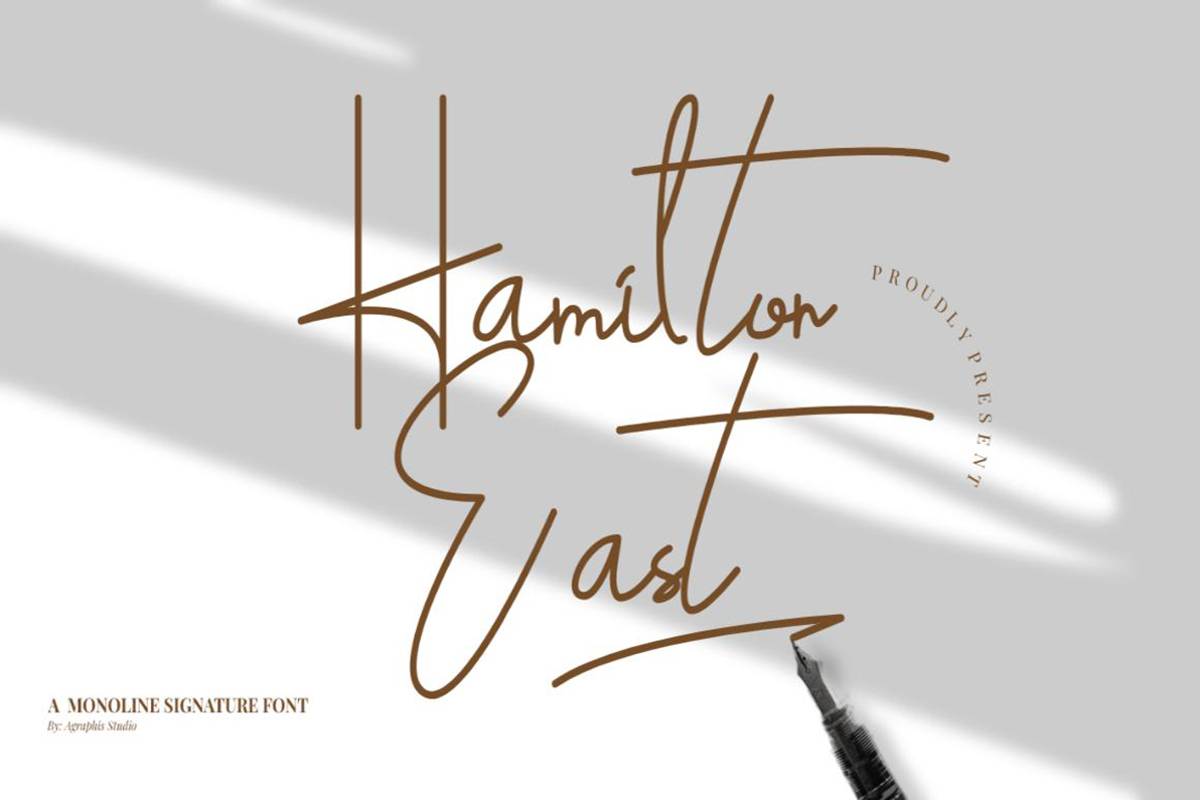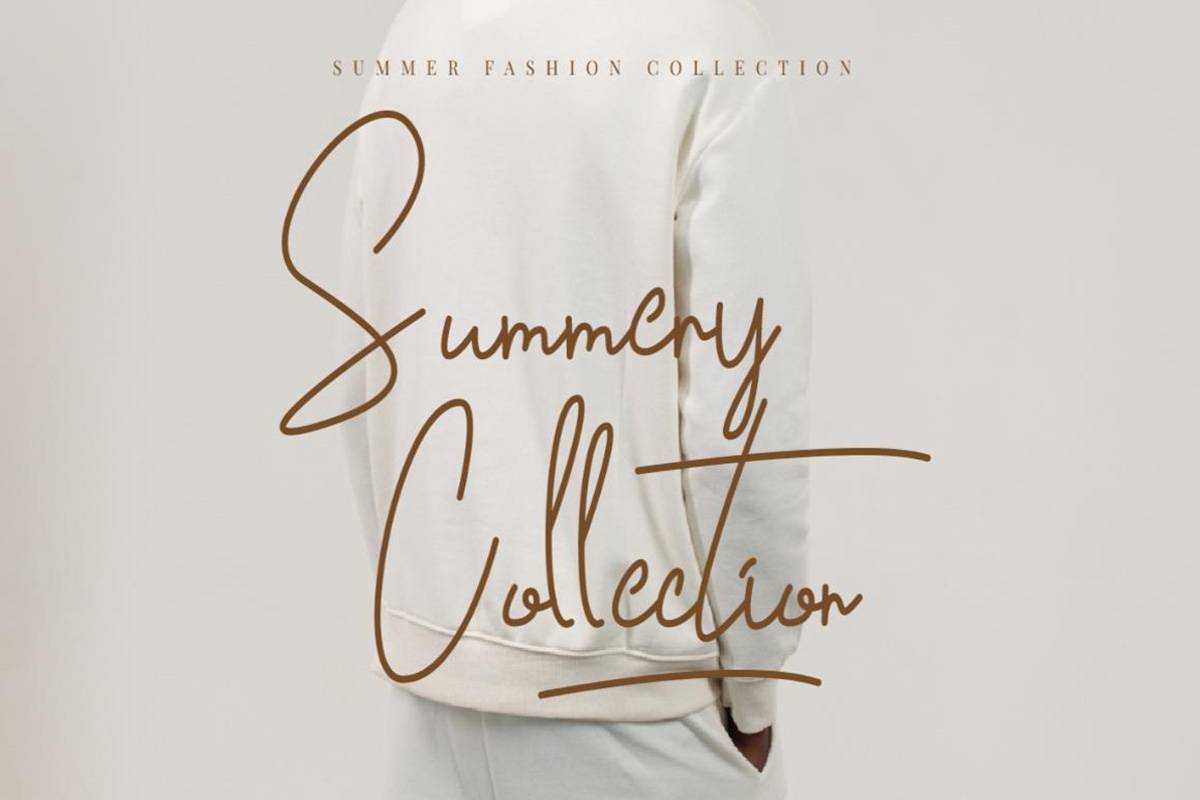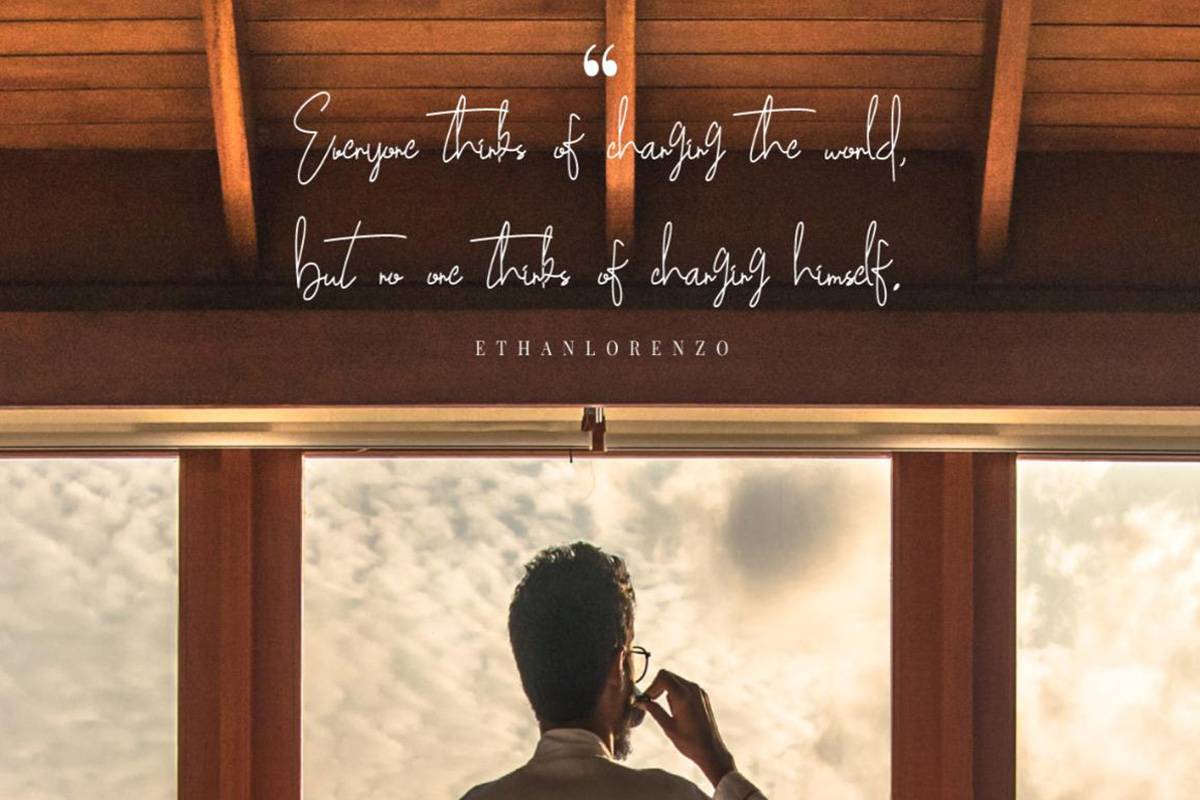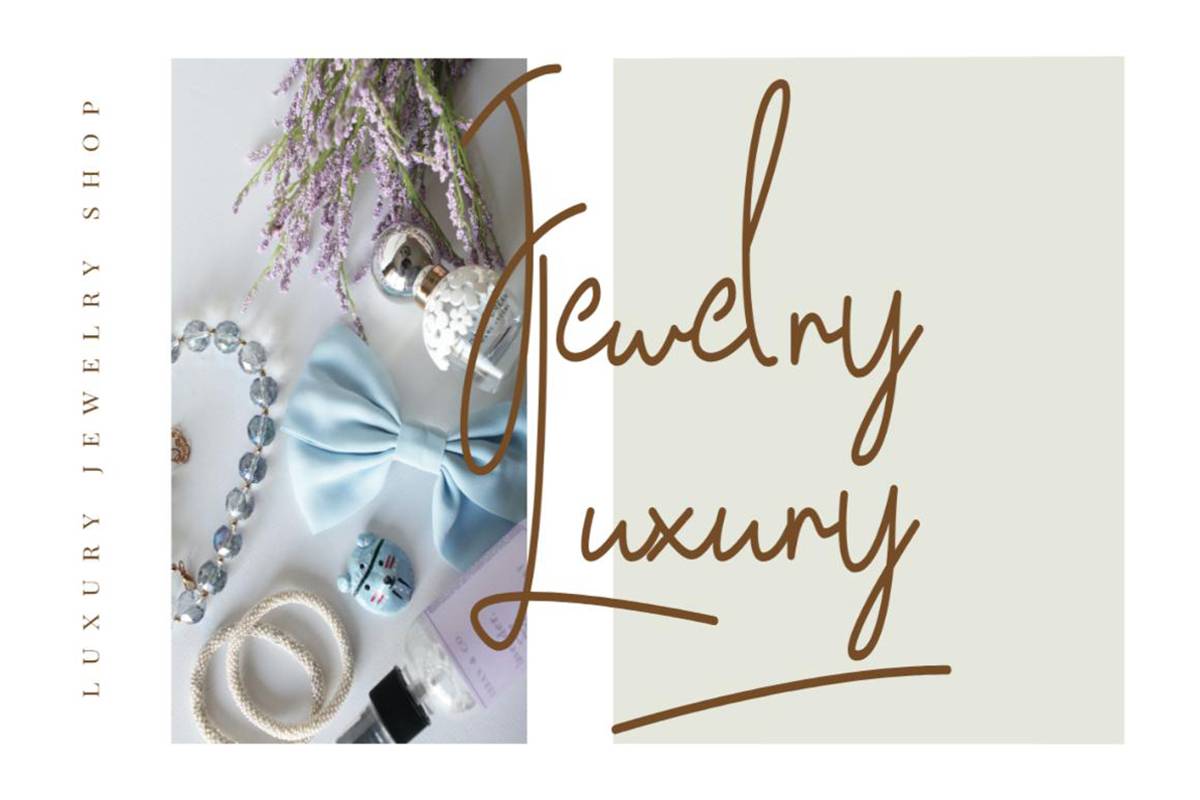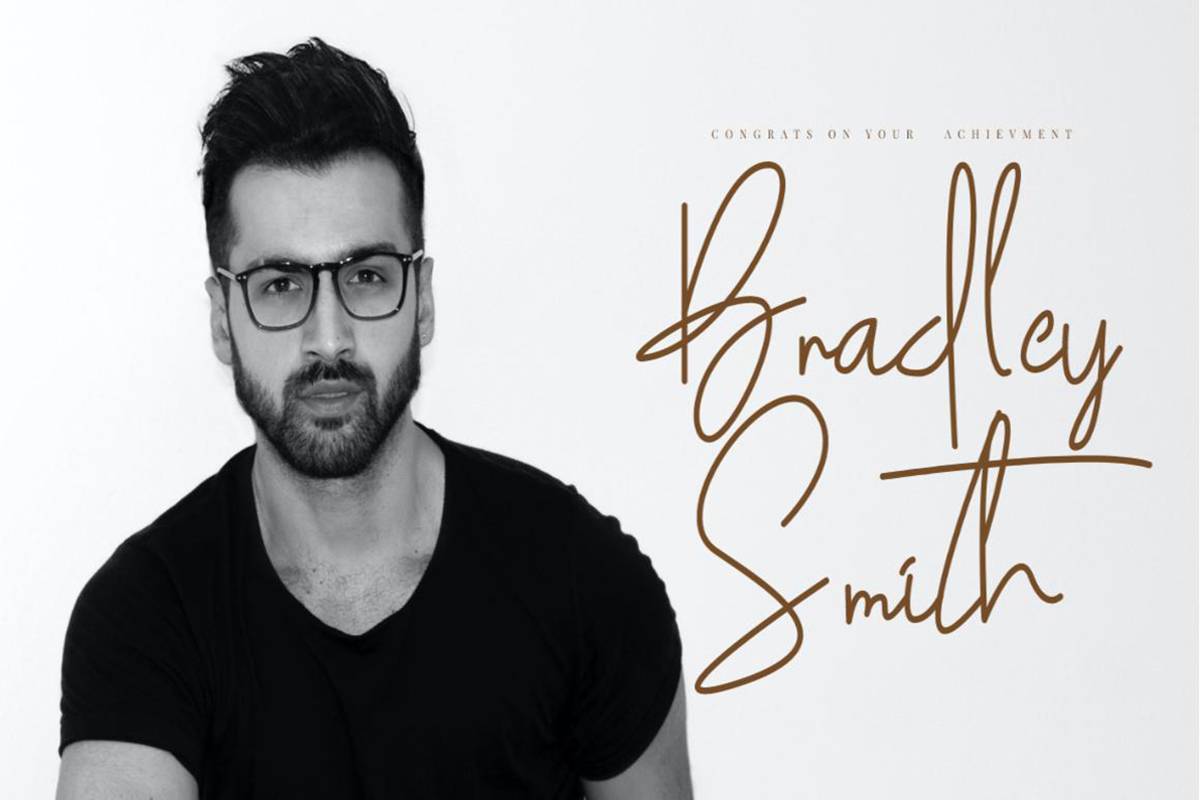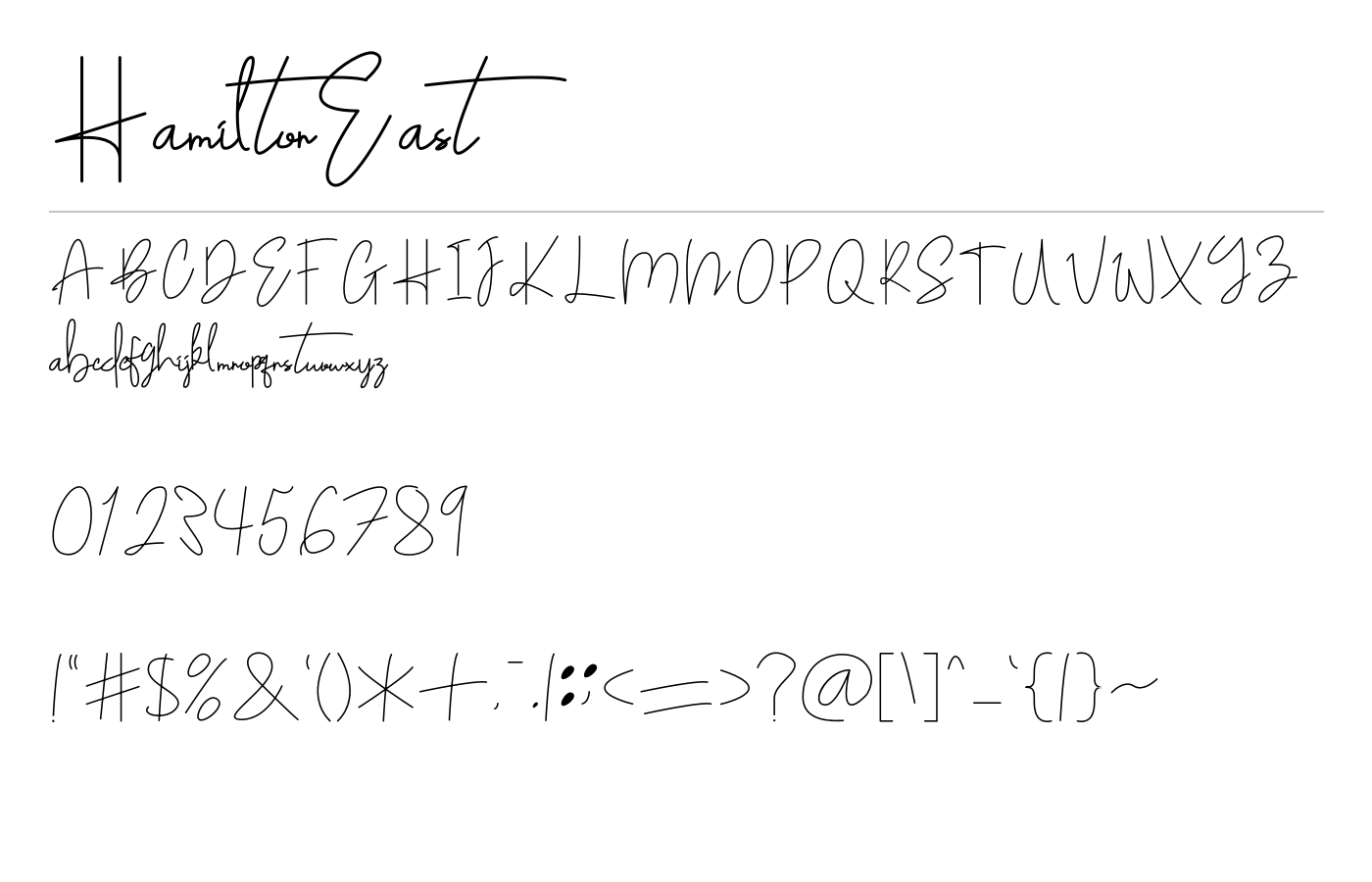
Hamilton East is a delicate, hand-drawn script font with tall, narrow letterforms that give it an elegant and airy feel. Its thin, slightly irregular strokes and casual, playful style make it perfect for creative branding, invitations, and personal projects where a whimsical yet sophisticated touch is desired. This font shines in designs that seek a handcrafted, intimate atmosphere rather than formal or rigid typography.
Hamilton East Font
About Hamilton East Font
| Font family | Hamilton East Font |
| Designer | Alfin Nedi |